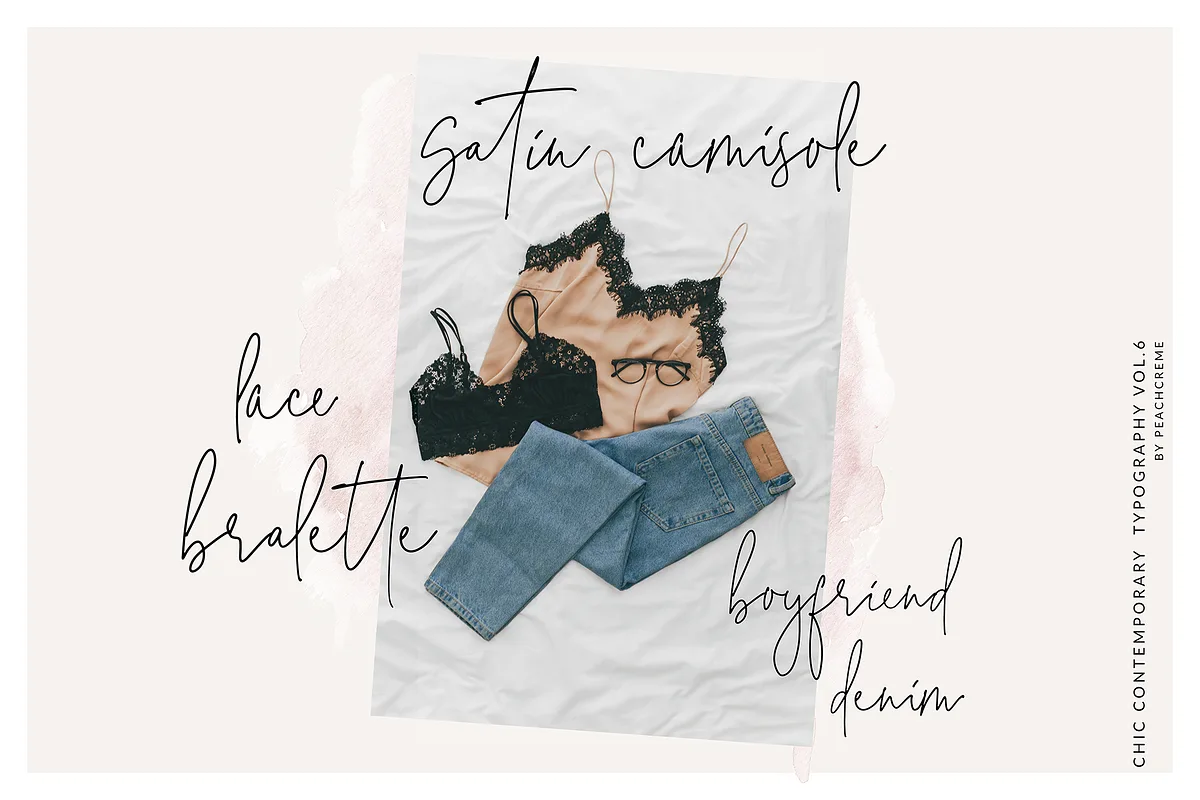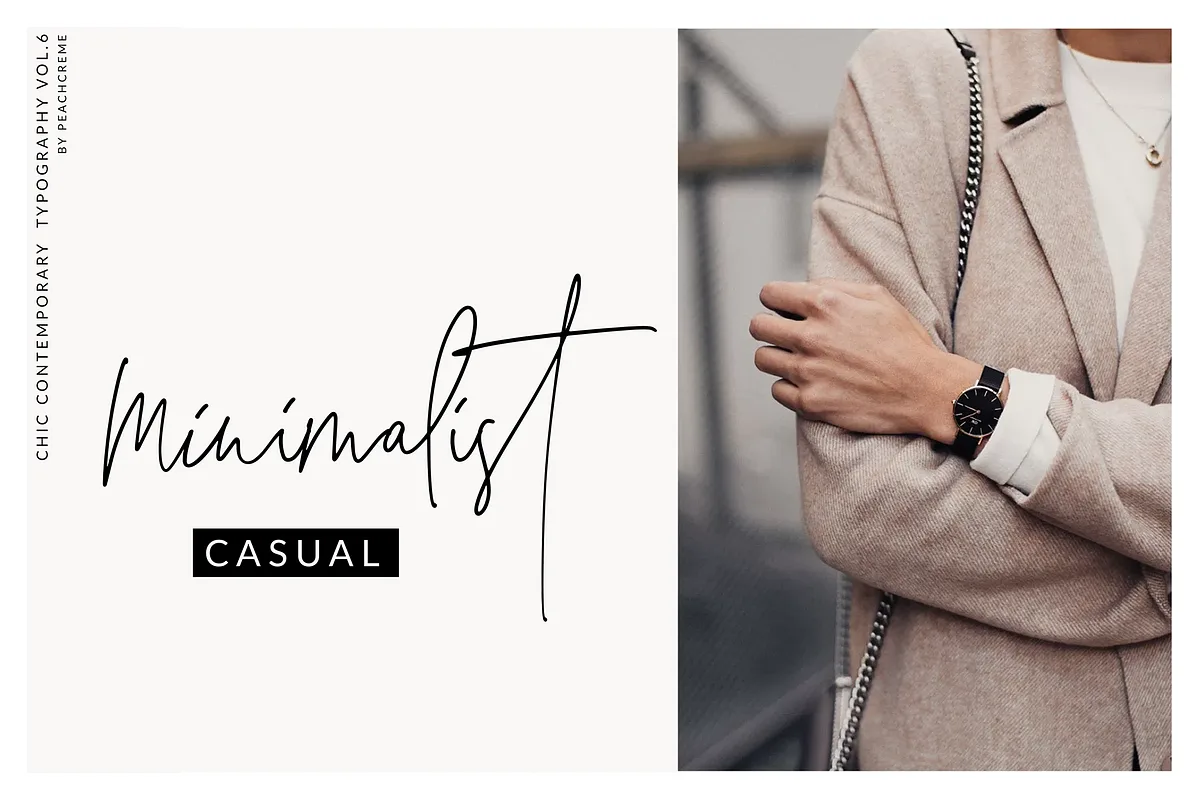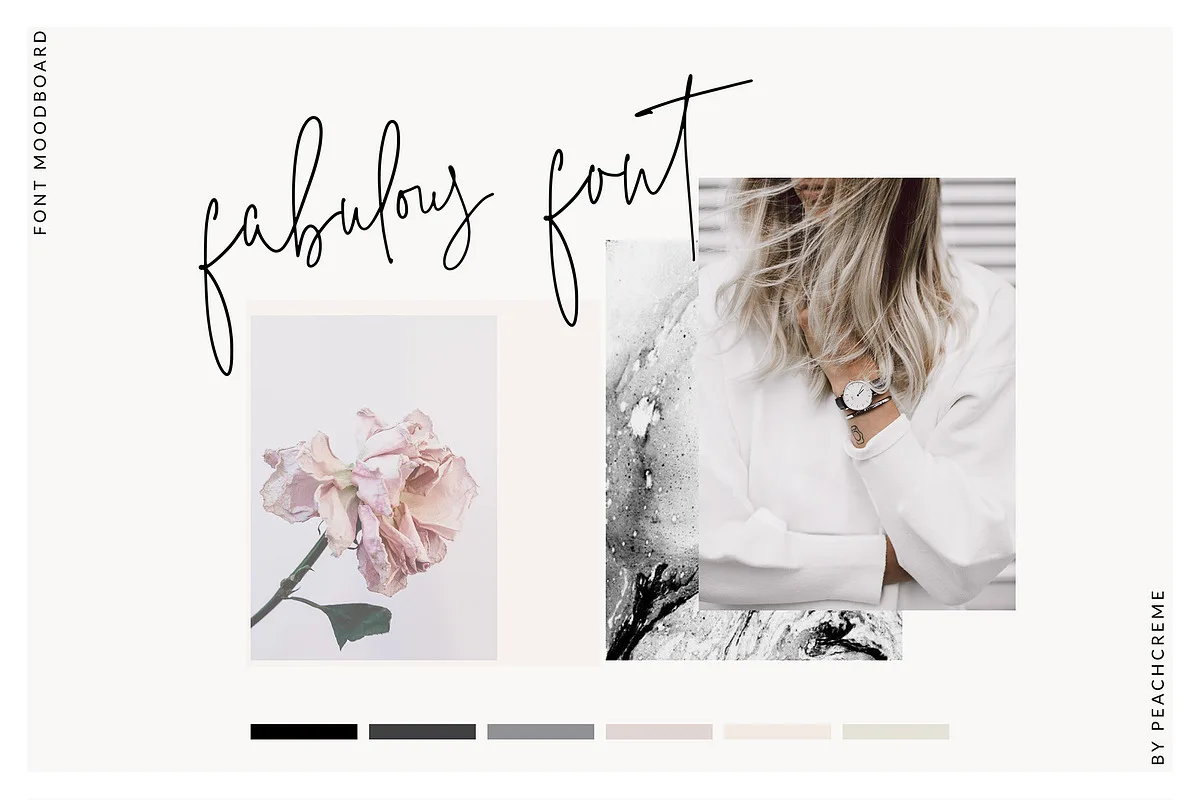
“The Styled Edit” is a crème de la crème font with contemporary, sophisticated accents. It is perfect for blogging, social media, branding, wedding invites and cards.
“The Styled Edit” includes full set of gorgeous uppercase and lowercase letters, numerals, a large range of punctuation and 90 ligatures, giving realistic hand-lettered style.